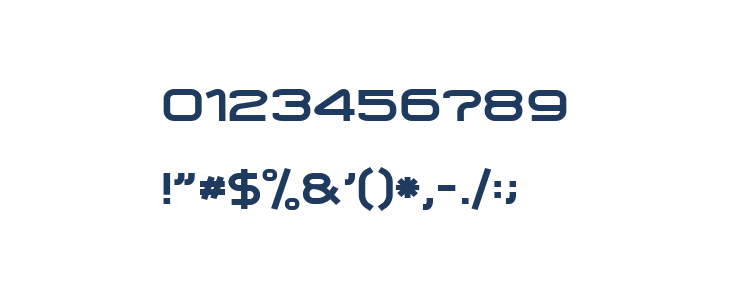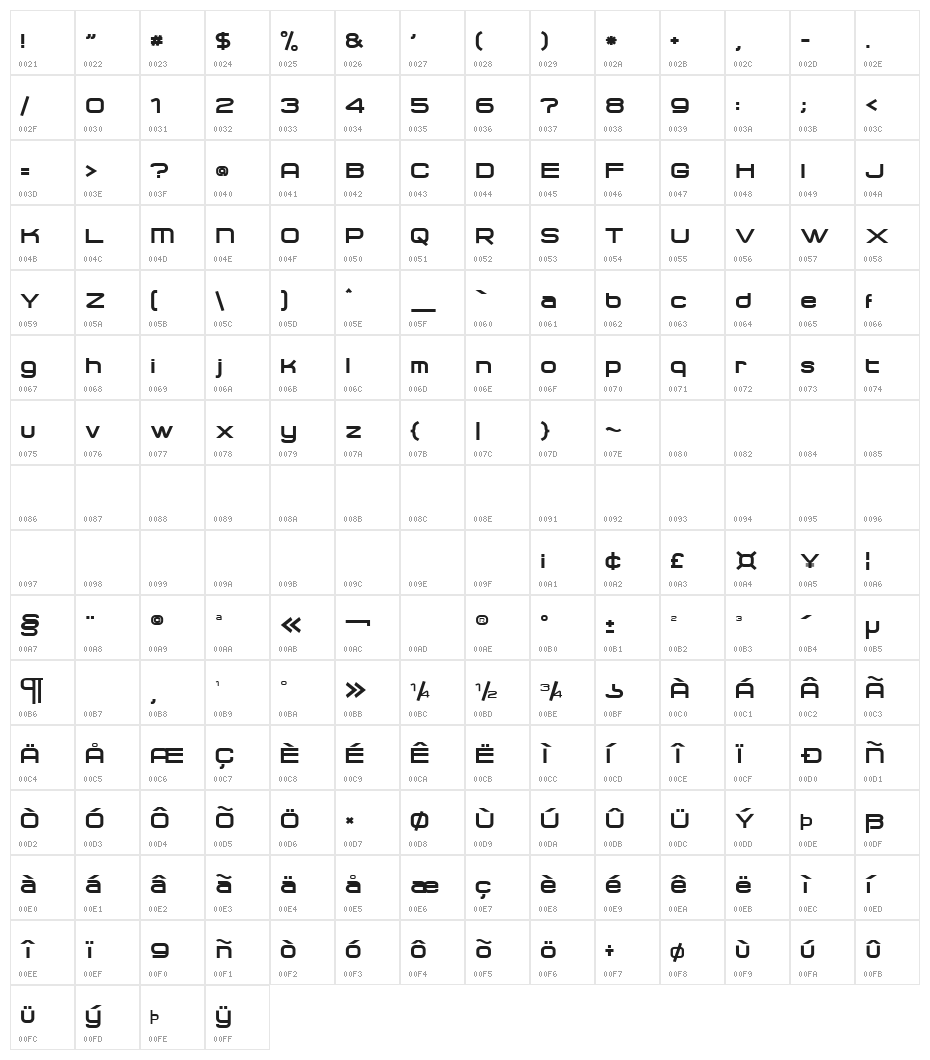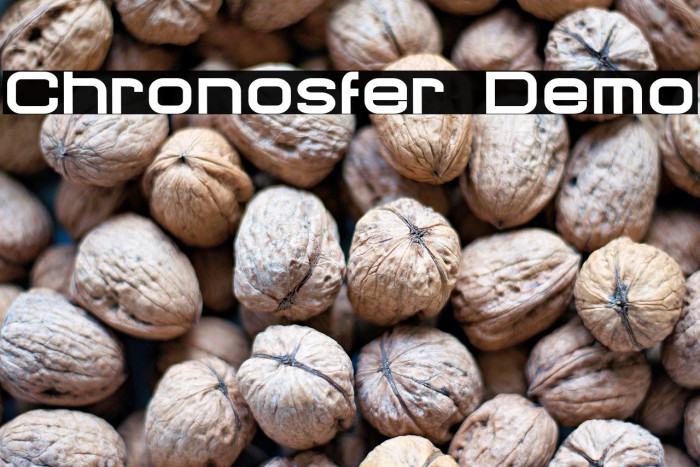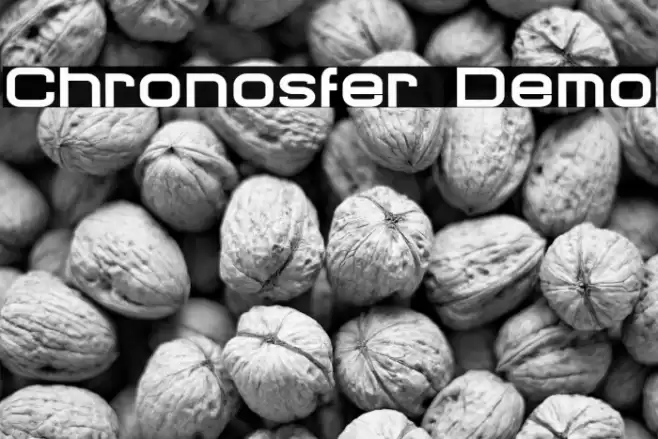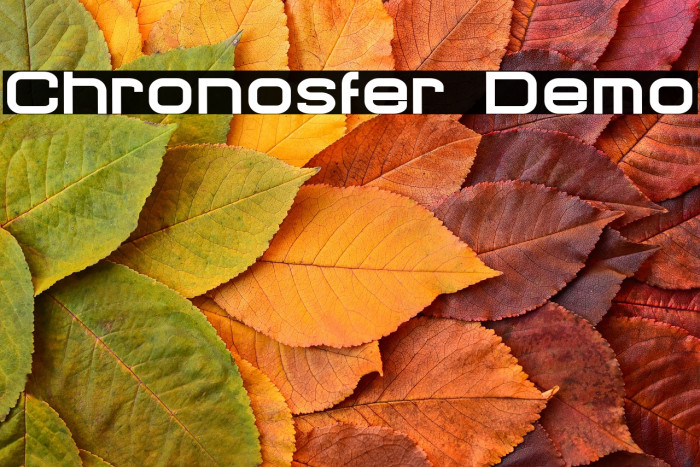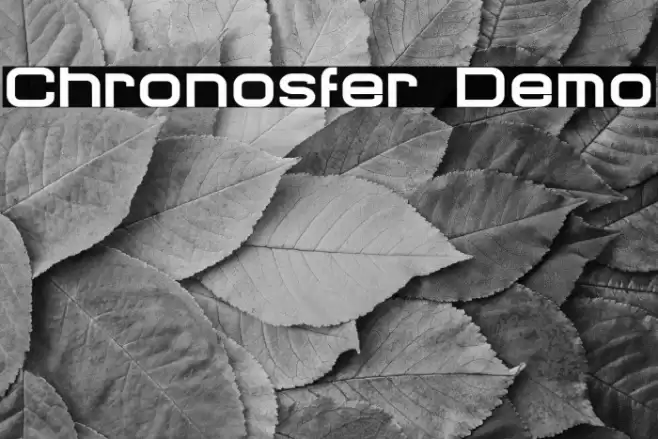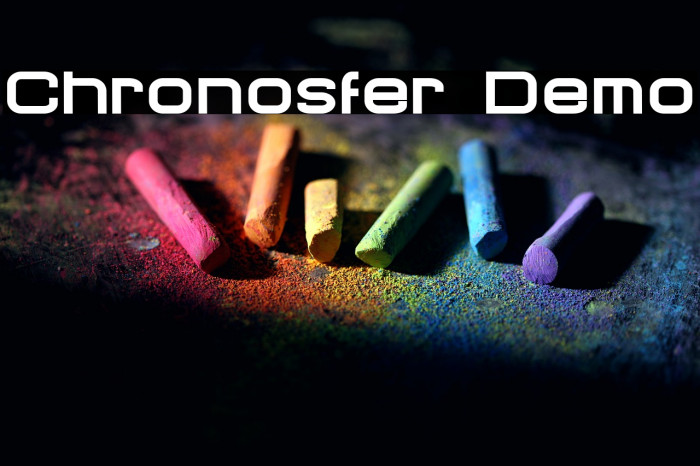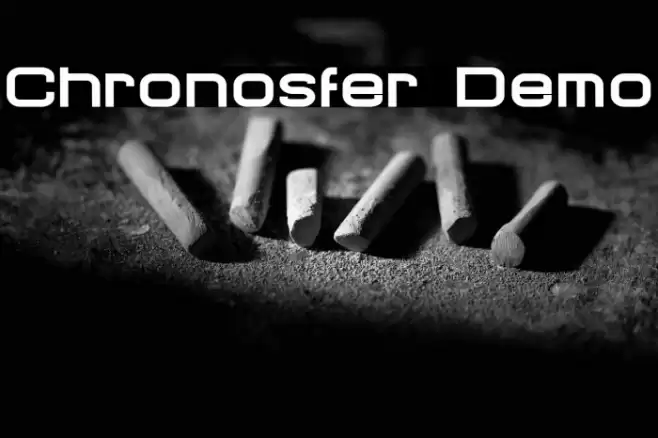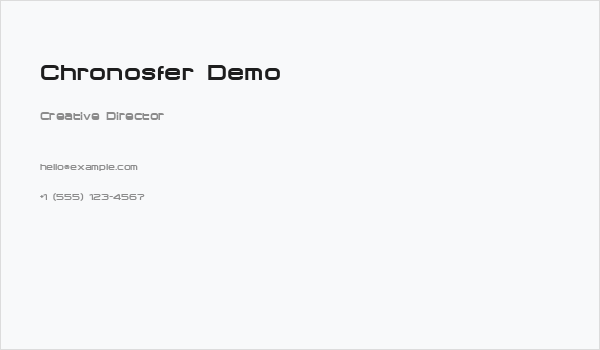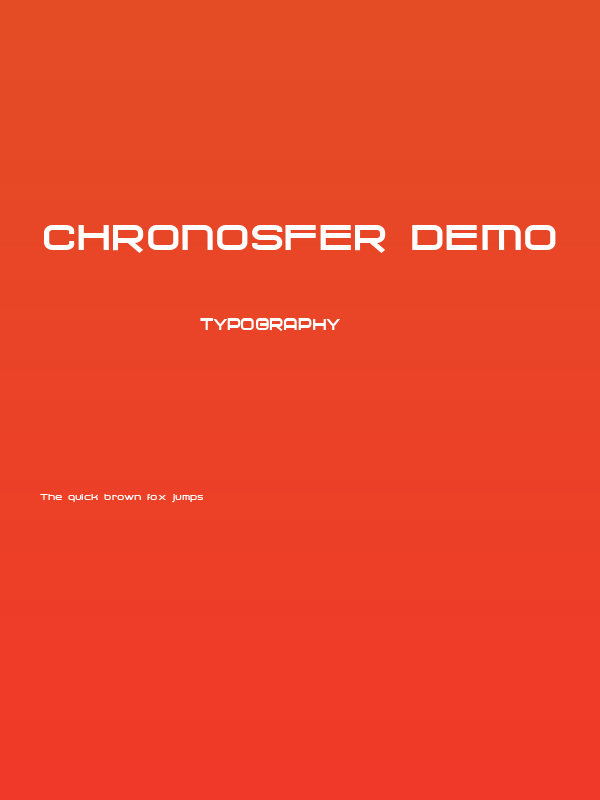
Chronosfer Demo Font
Chronosfer Demo Description
This font features a modern, geometric style with a futuristic touch. Its characters are constructed with clean, sharp lines and a uniform thickness, giving it a sleek and contemporary appearance. The uppercase letters are bold and assertive, while the lowercase letters maintain a consistent style with slightly softer edges. The numerals are clear and easy to read, matching the overall aesthetic of the alphabet. Special characters are designed with the same attention to detail, ensuring a cohesive look across all glyphs. This font is ideal for projects that require a modern and technical feel, such as technology branding, sci-fi themed designs, or digital interfaces.
| Proposed Projects | Ideal for technology branding, sci-fi themed designs, digital interfaces, and modern advertising. |